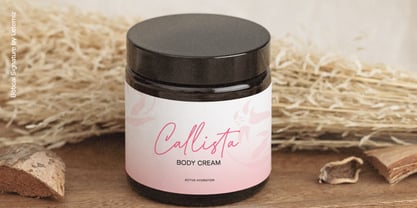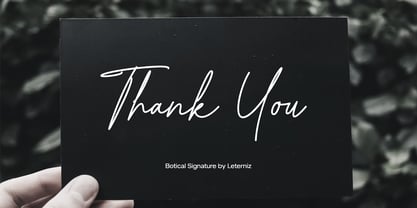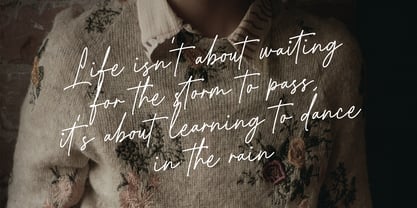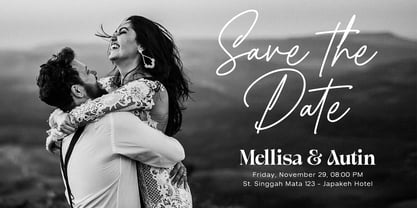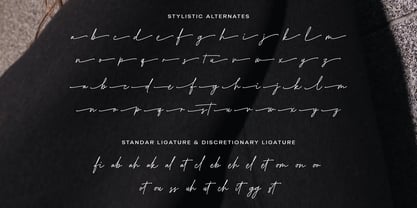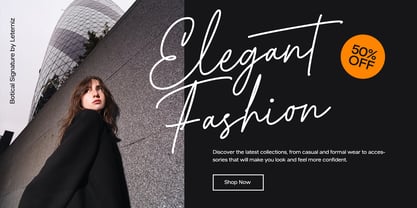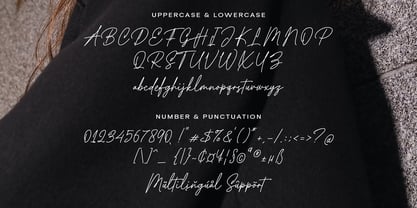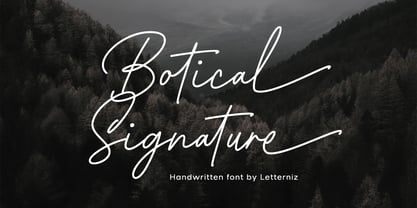
Botical Signature
von Letterniz
Die Schriftfamilie Botical Signature wurde von Nizar Bagas Maulana entworfen und von Letterniz veröffentlicht. Botical Signature enthält 1 Stile.
Botical Signature is a beautiful Monoline Signature Script Font, perfect for any project like: logos, branding projects, homewares designs, product packaging, mugs, quotes, posters, shopping bags, t-shirts, covers books, business cards, invitation cards, greeting cards, labels, photography, watermarks, special events and all your other luxury projects that require a premium taste.